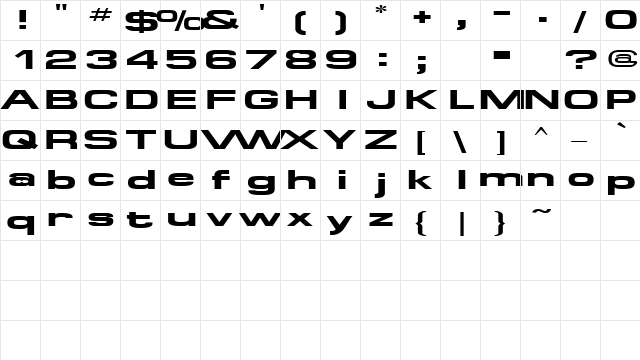
SpaceOutBoldExtended Regular
Design Context for SpaceOutBoldExtended Typeface
SpaceOutBoldExtended is a composed and adaptable typeface that performs quietly and consistently across a wide range of design contexts. The heavy weight commands attention and anchors typographic hierarchies.